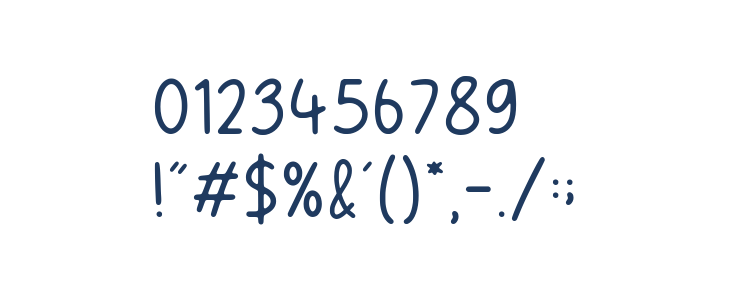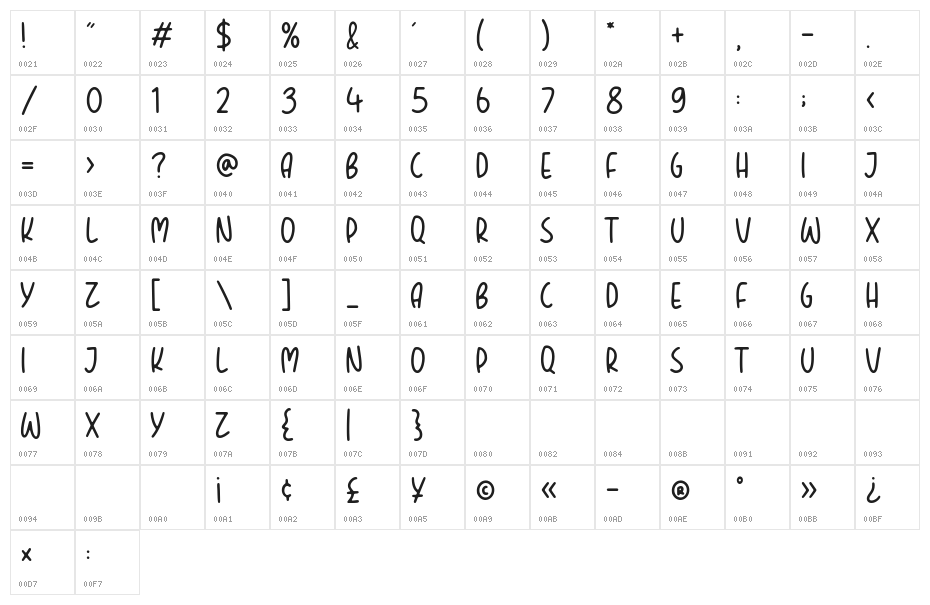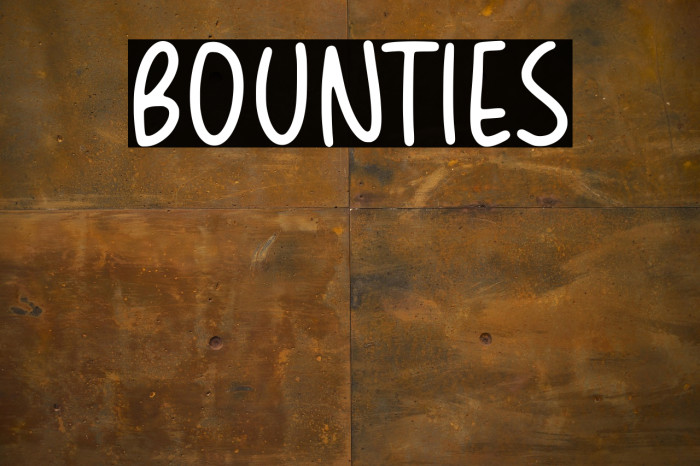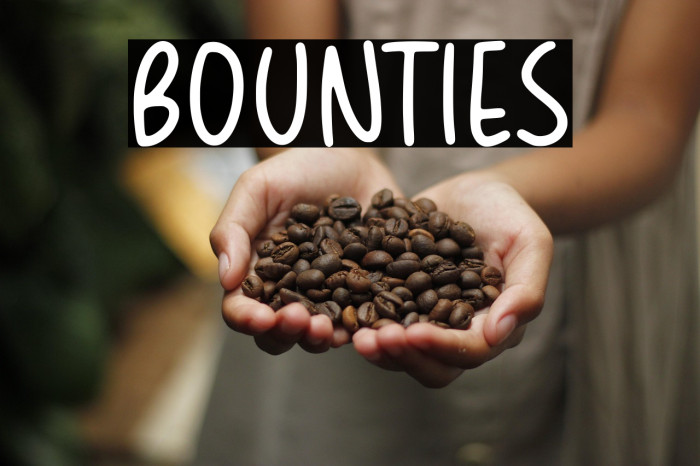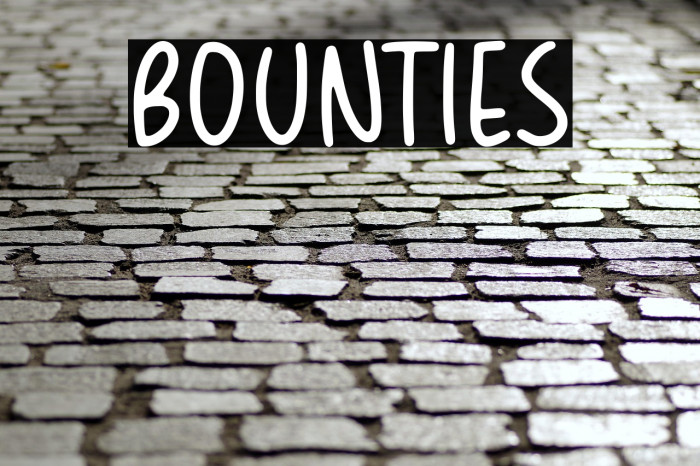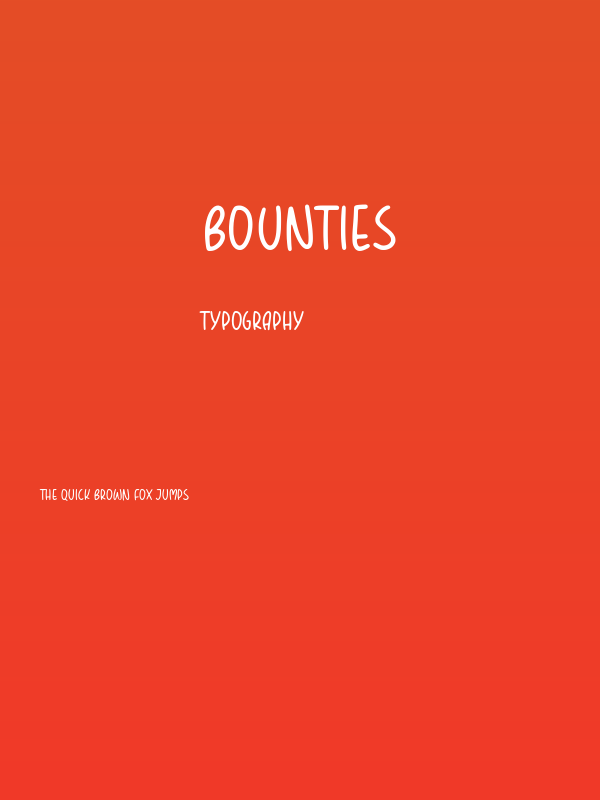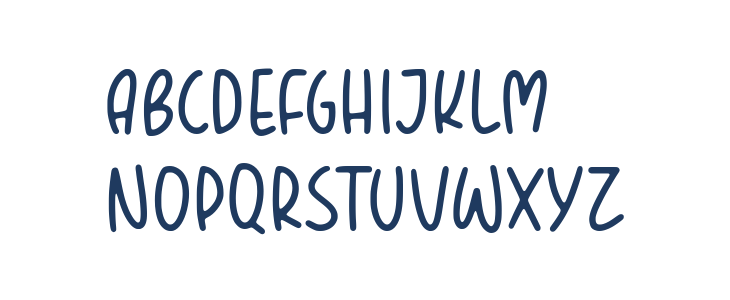
BOUNTIES Font
BOUNTIES Description
This font features a playful and casual handwritten style, characterized by smooth, rounded strokes and a consistent flow throughout the characters. The letters are slightly tilted, adding a dynamic and informal touch to the overall appearance. The uppercase and lowercase letters maintain a uniform height, contributing to a cohesive look. The numerals and special characters are designed with the same playful aesthetic, ensuring they blend seamlessly with the alphabet. This font's friendly and approachable style makes it suitable for a variety of creative projects.
| Overall Style | Casual |
| Use Case | Headlines, Logos, Informal Text |
| Proposed Projects | Ideal for greeting cards, children's books, casual branding, and social media graphics. |